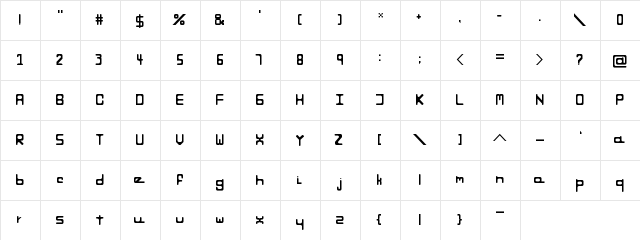
tipografia1 Regular Font Preview
tipografia1 Regular
tipografia1 Regular Font Details
| Designer | PHAUSTO |
| Year | 2010 |
Design Context for tipografia1 Typeface
tipografia1 is a composed and adaptable typeface that performs quietly and consistently across a wide range of design contexts.